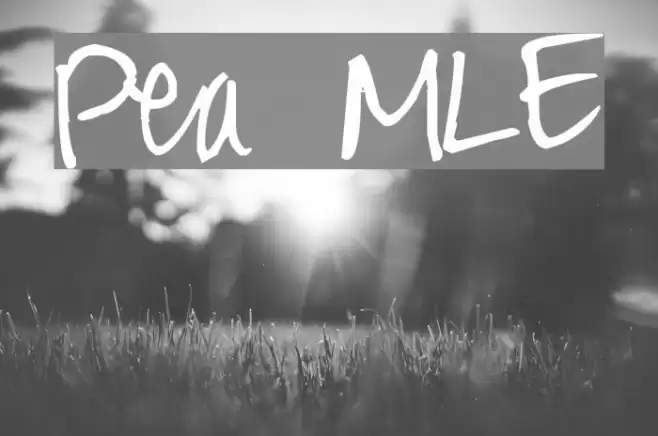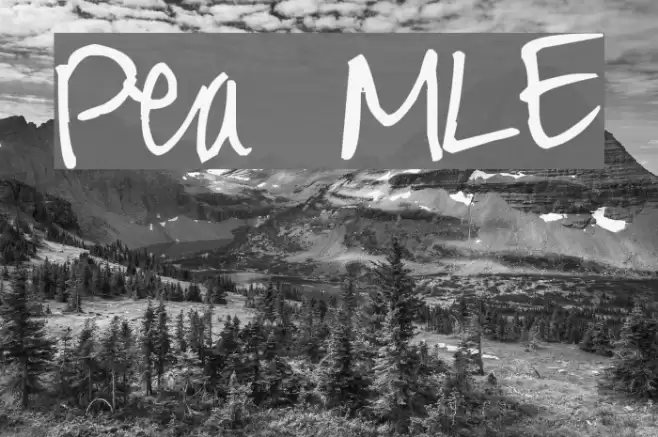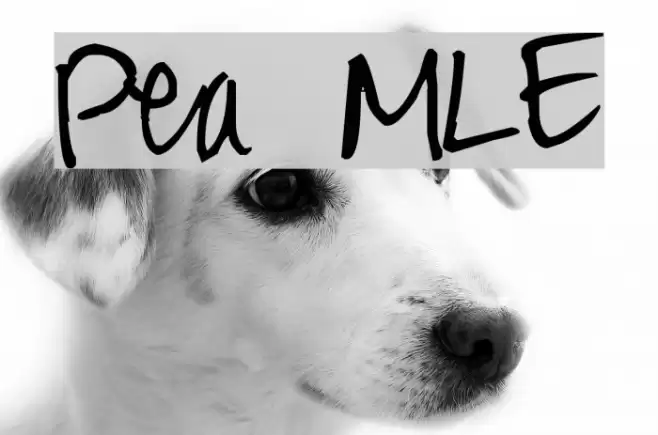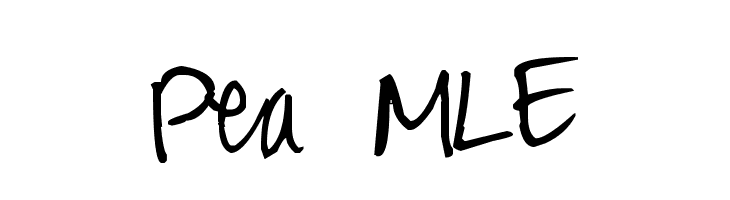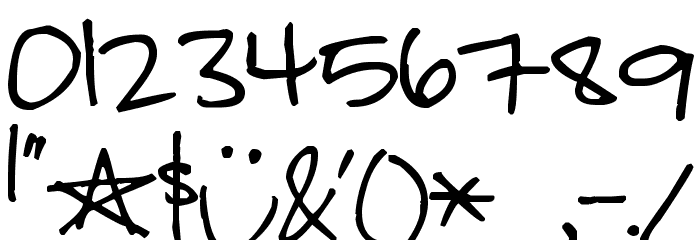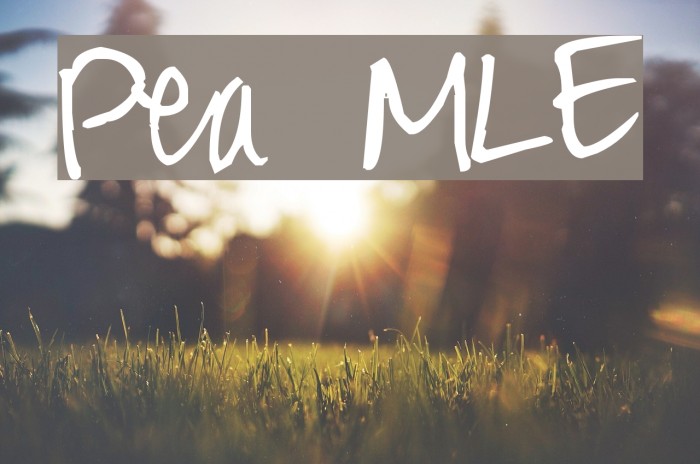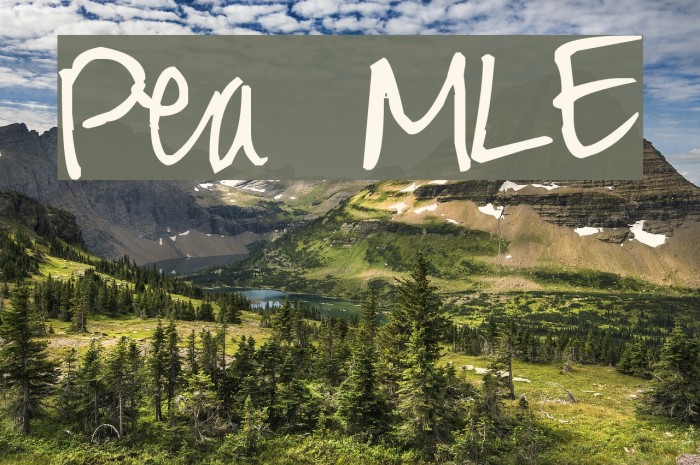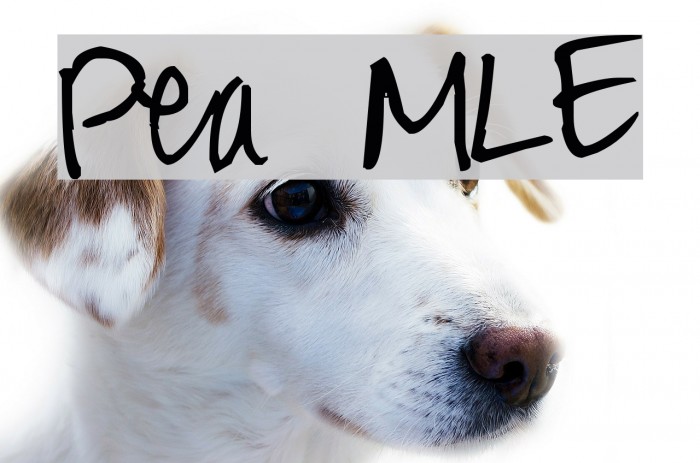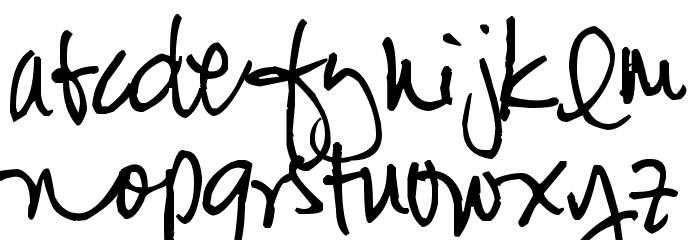
Pea MLE Font
Pea MLE Description
This font exudes a casual, handwritten style with a playful and informal appearance. The letters are slightly slanted, giving a dynamic and lively feel. The strokes are uneven, mimicking the natural flow of handwriting, which adds a personal touch. The uppercase and lowercase letters are distinct, with the lowercase letters showing more fluidity and curvature. The numbers and special characters maintain the same handwritten aesthetic, ensuring consistency across all glyphs. This font is perfect for projects that require a personal, approachable, and friendly vibe.
A casual, handwritten font with a playful and informal style from Uncategorized fonts.
- Proposed Projects: Ideal for greeting cards, personal notes, invitations, and social media graphics.
- Overall Style: Casual
- Use Case: Headlines, Informal text, Personal projects